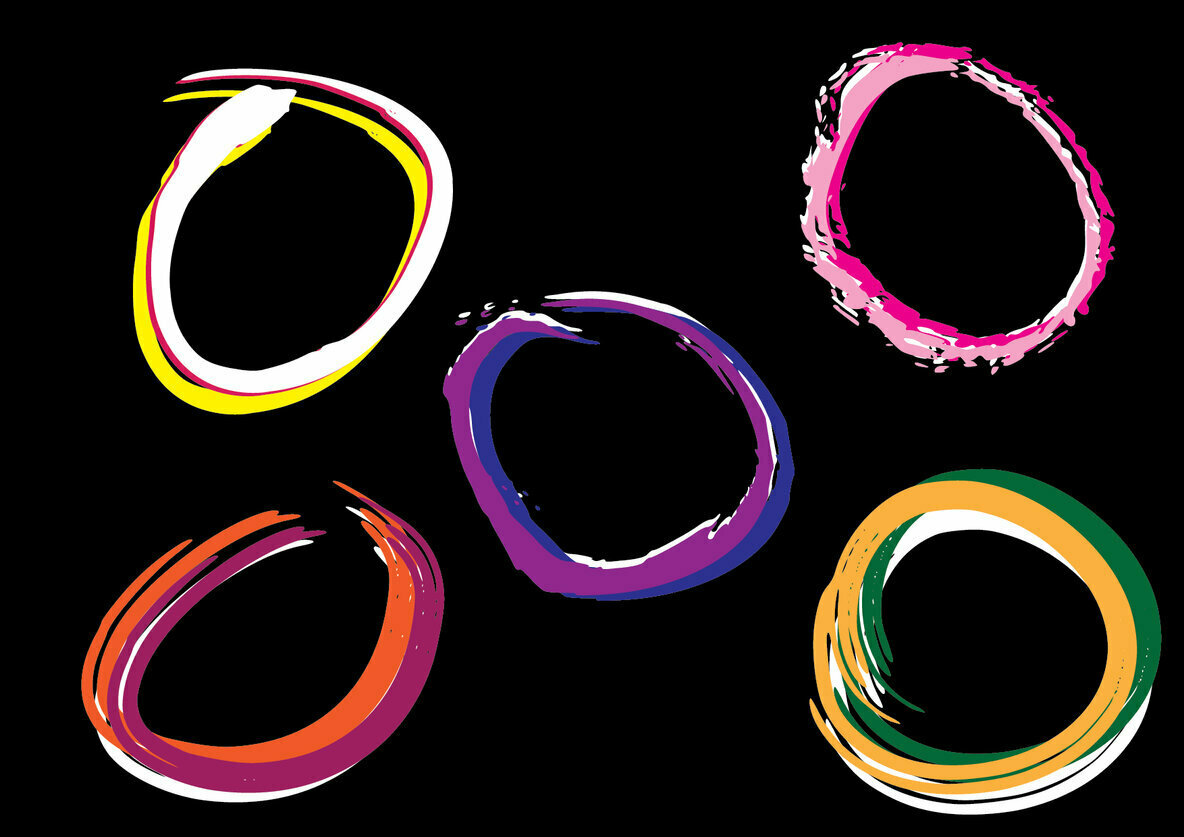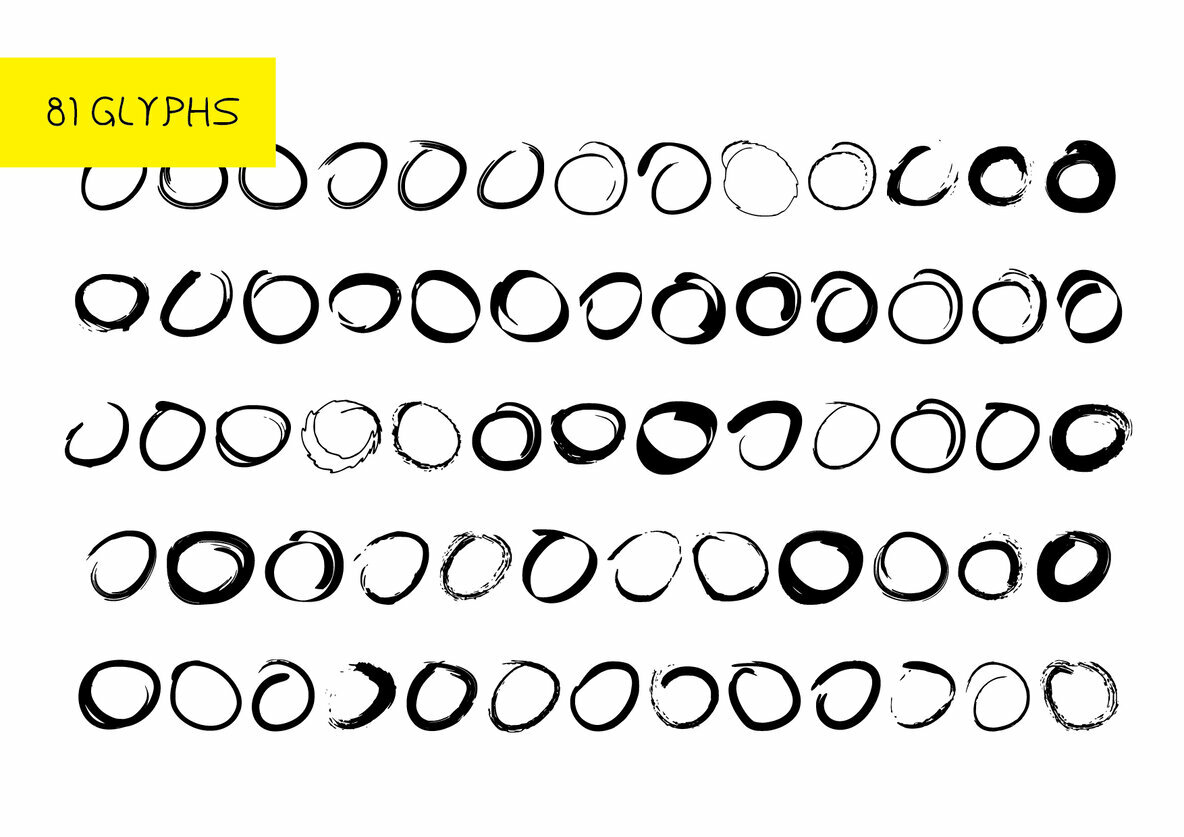
BM Graphics - Circles V2 Font
BM Graphics Cirlces V2
BM Graphics - Circles V2 is a stunning dingbats font that combines 81 Glyphs. Use it for any design project that requires a hand drawn look and feel, there are so many to choose from!